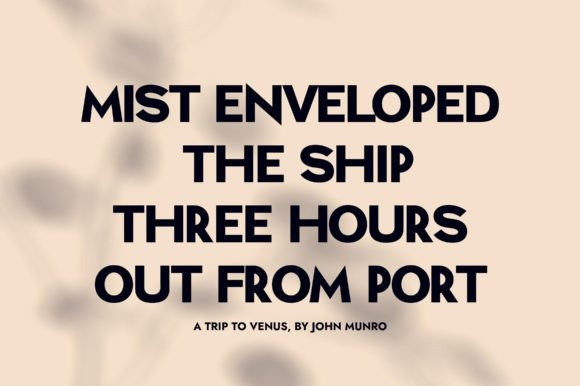
Grande Font , a modern and sleek sans serif font designed with the perfect balance of geometric shapes and minimalist flair. With over 604 glyphs, this font is a versatile addition to any designer’s toolkit, allowing for endless creative possibilities.
Grande’s clean and precise lines create a sense of elegance and sophistication, while its simplicity allows for easy readability and legibility at any size. This font is ideal for a wide range of design projects, from branding and logos to editorial layouts and website designs.
Designed with the modern designer in mind, Grande features a full range of uppercase and lowercase letters, numbers, and punctuation marks to ensure that your design needs are fully met.
Whether you’re looking to create a sleek and modern website or want to add a touch of sophistication to your print designs, Grande is the perfect choice. Its geometric shapes and minimalist design make it the go-to font for any designer looking to add a touch of elegance and simplicity to their work.